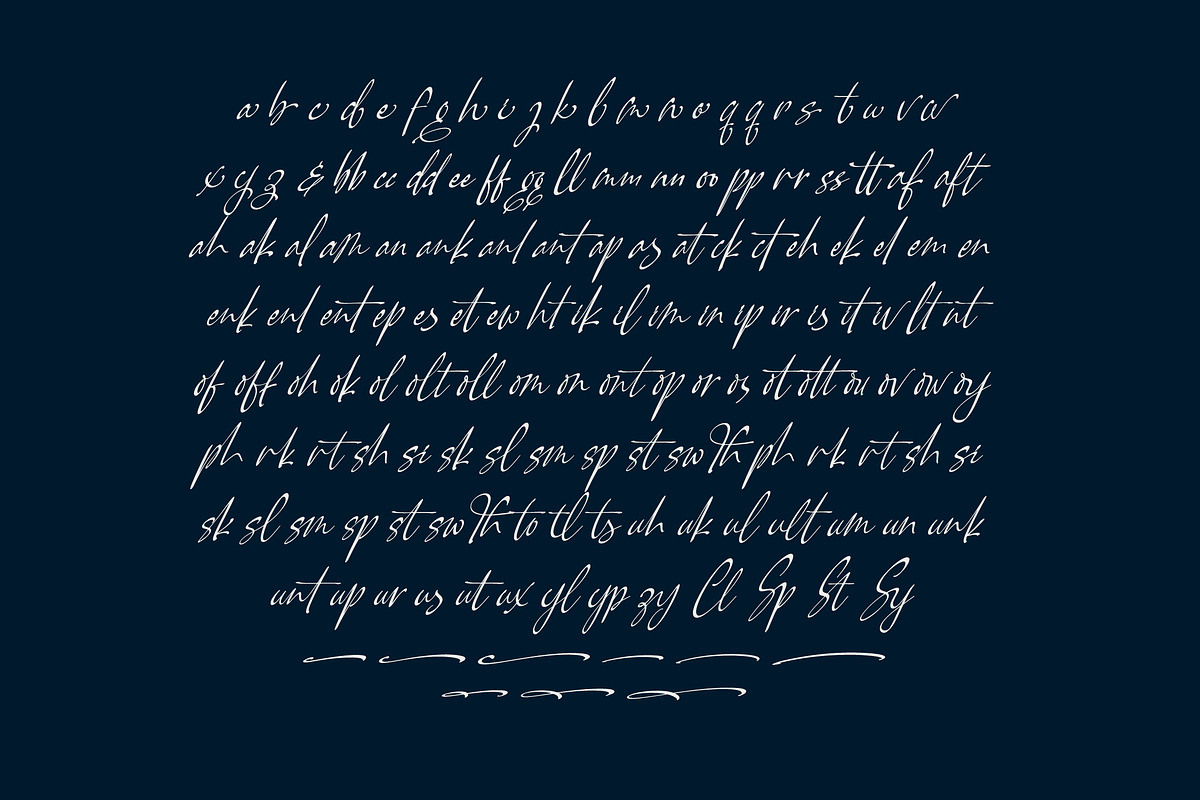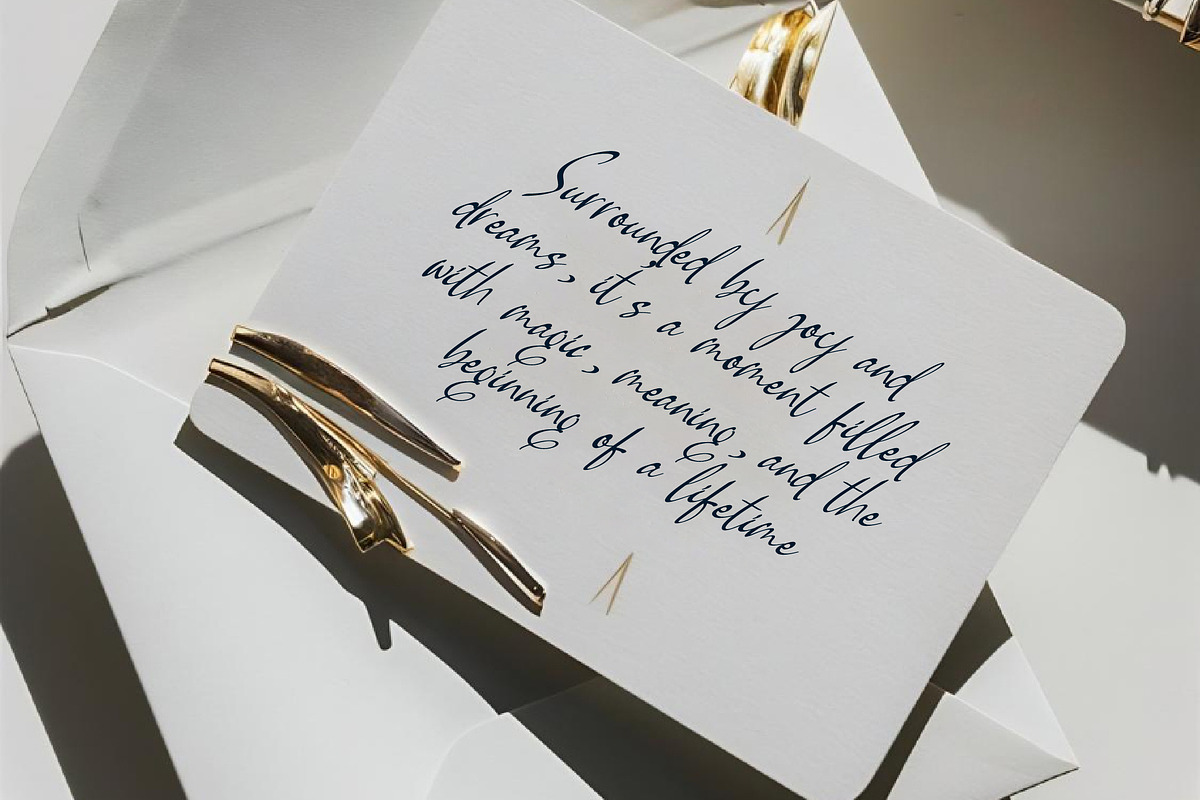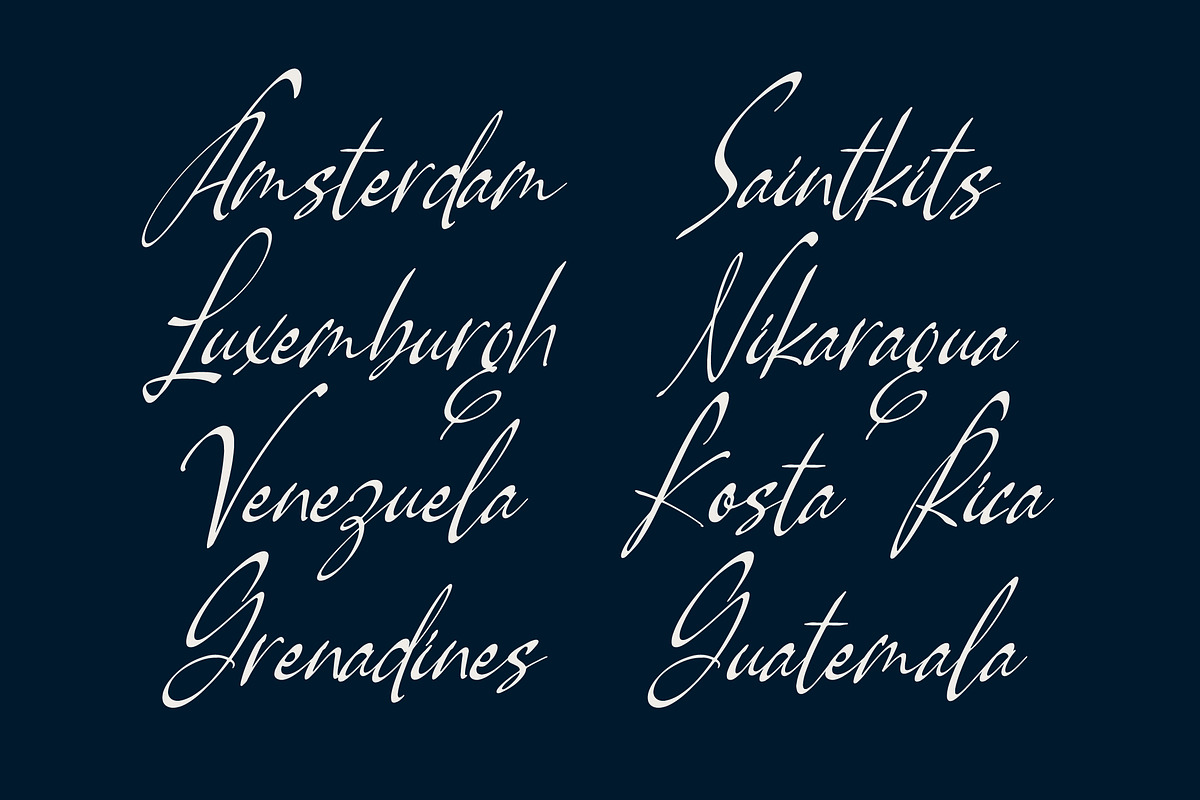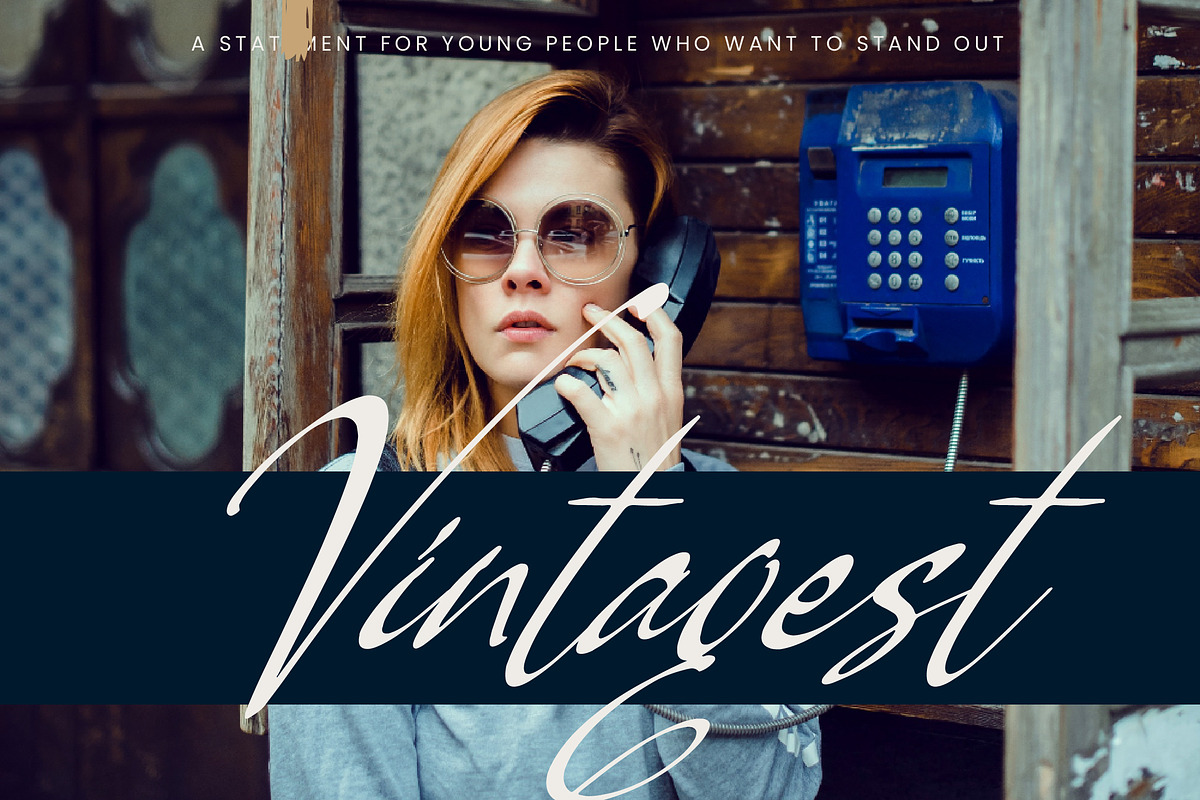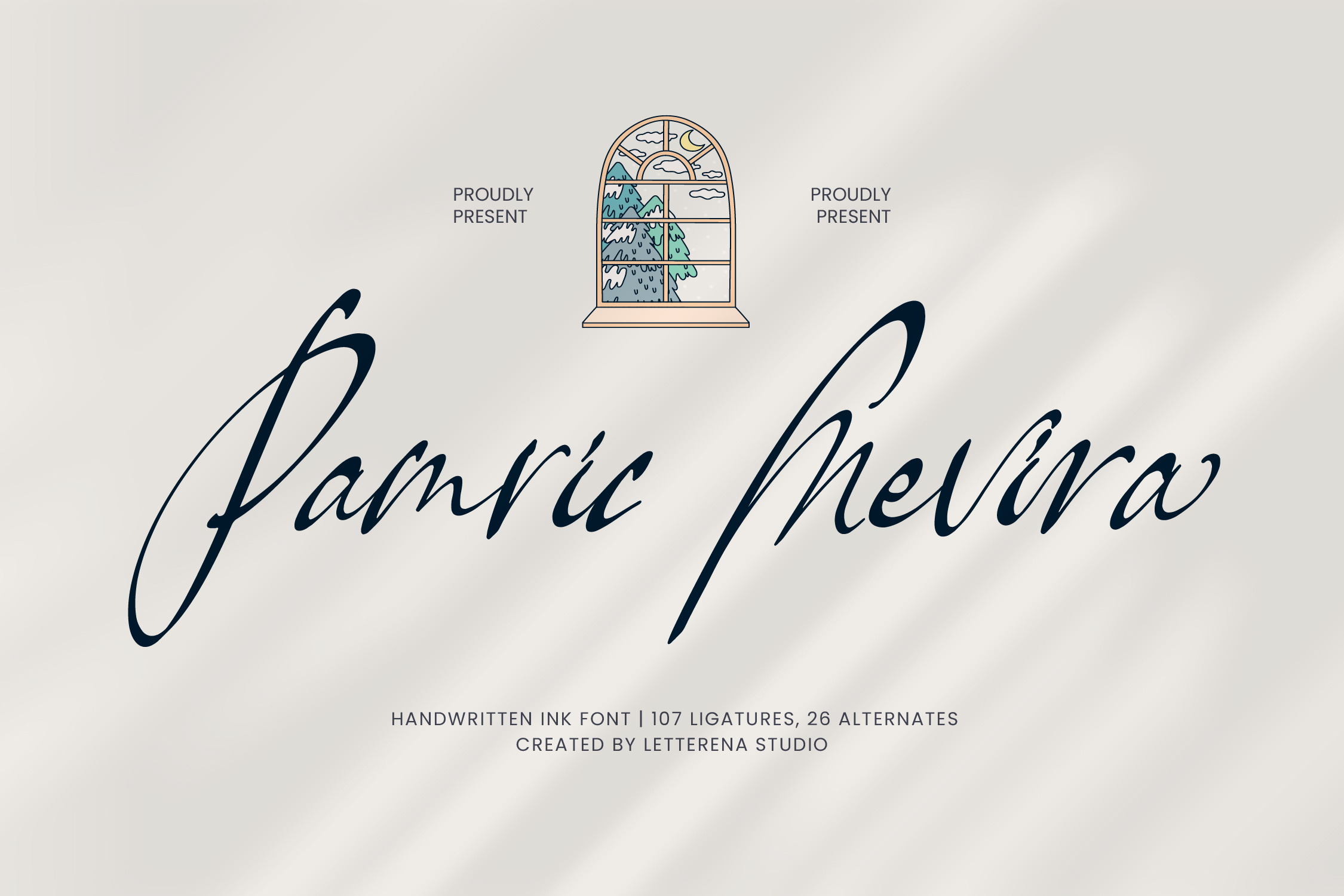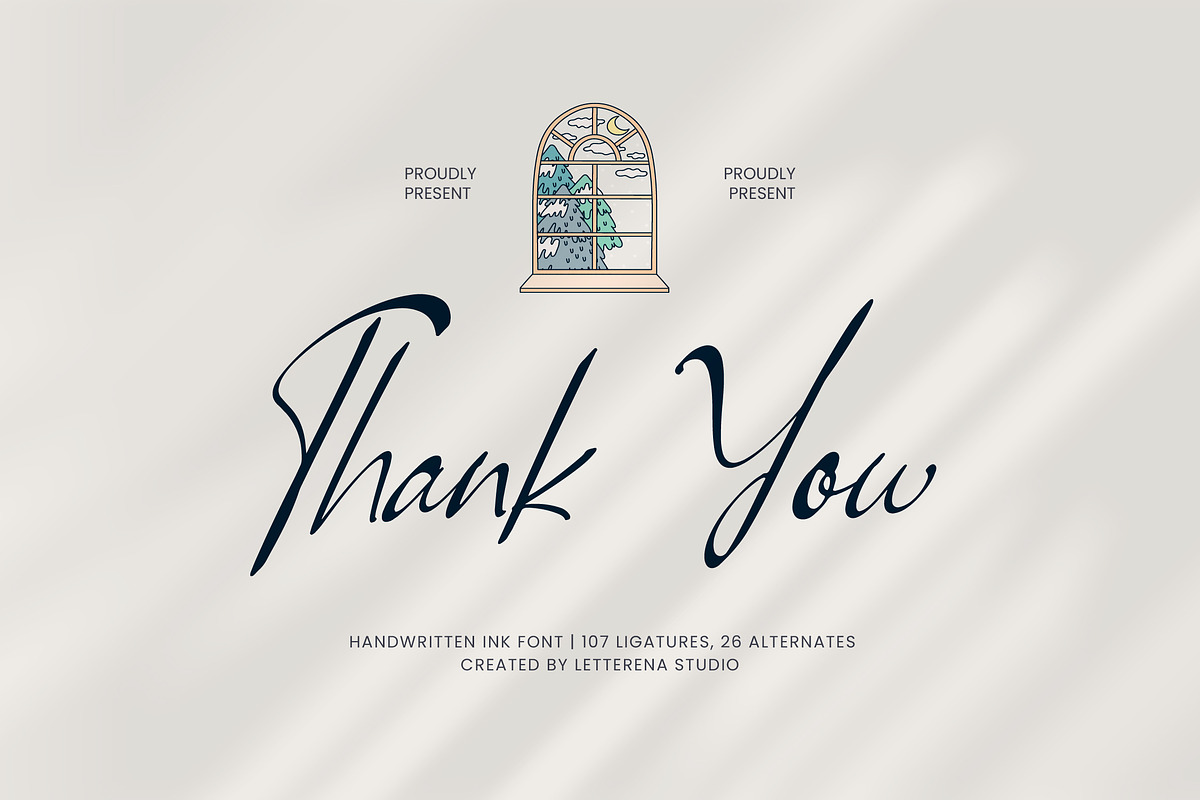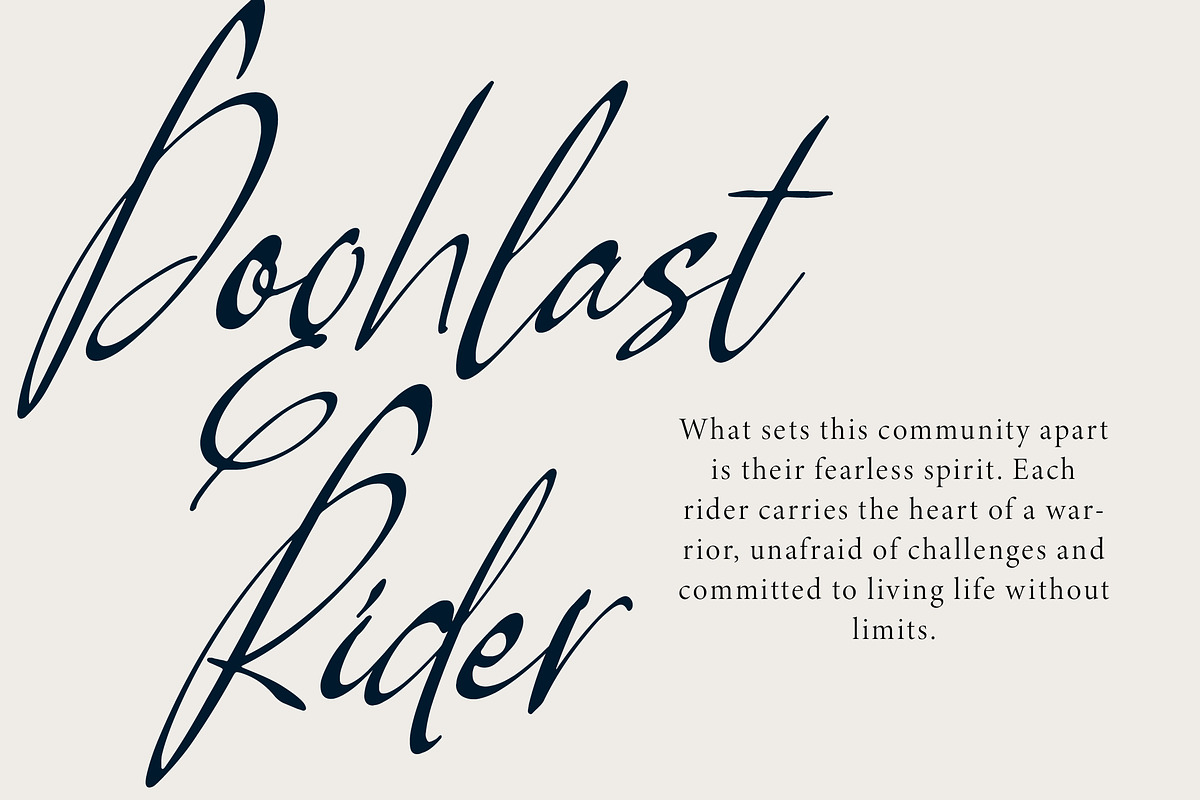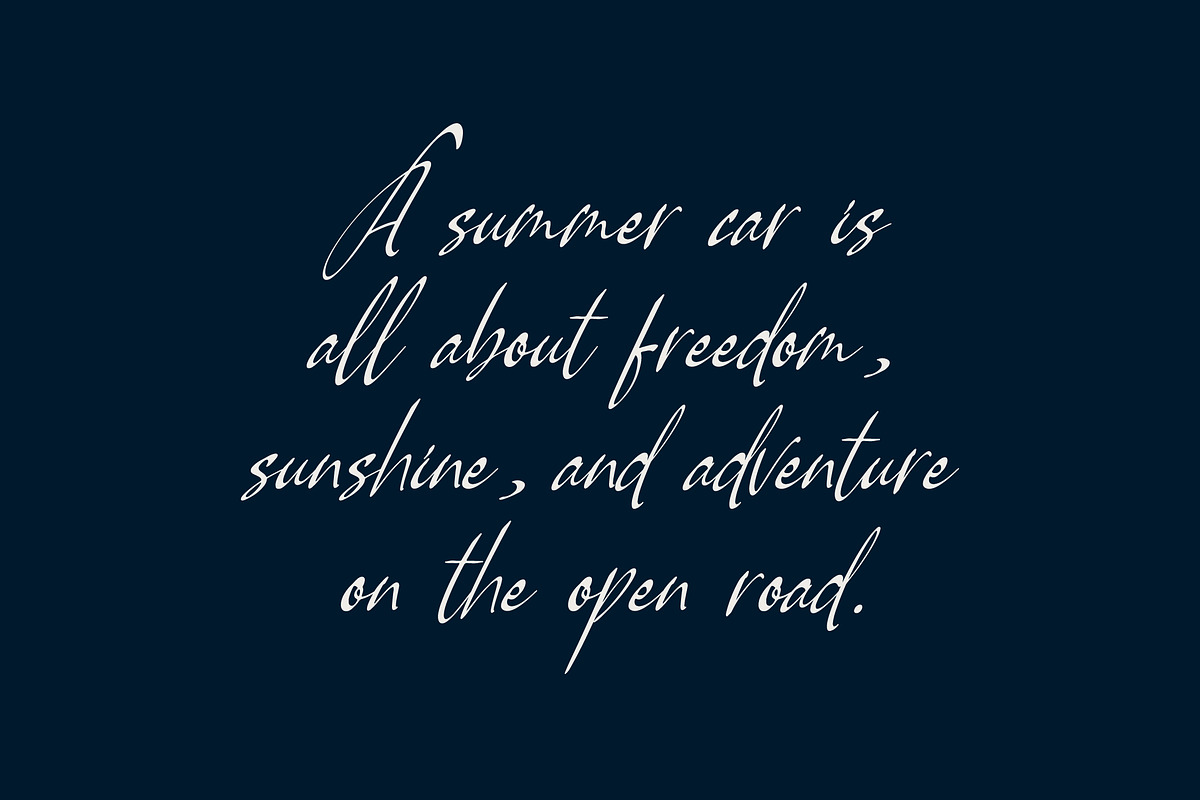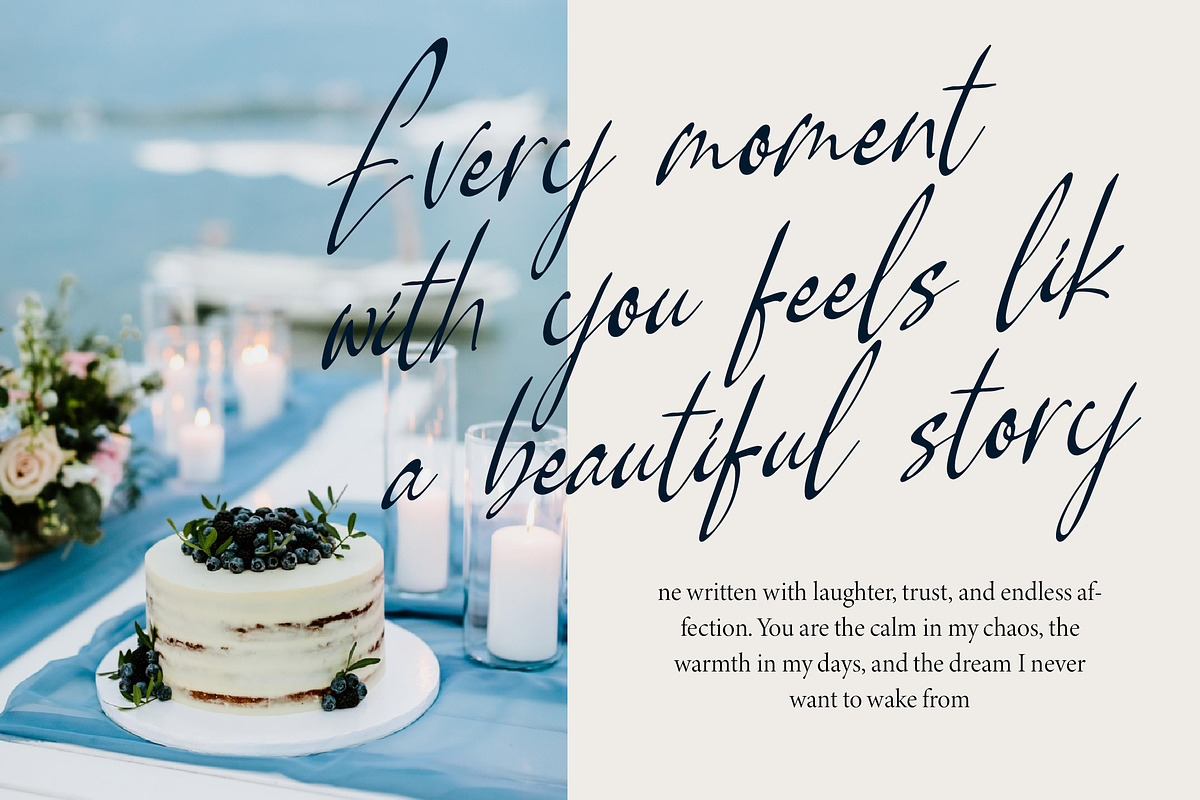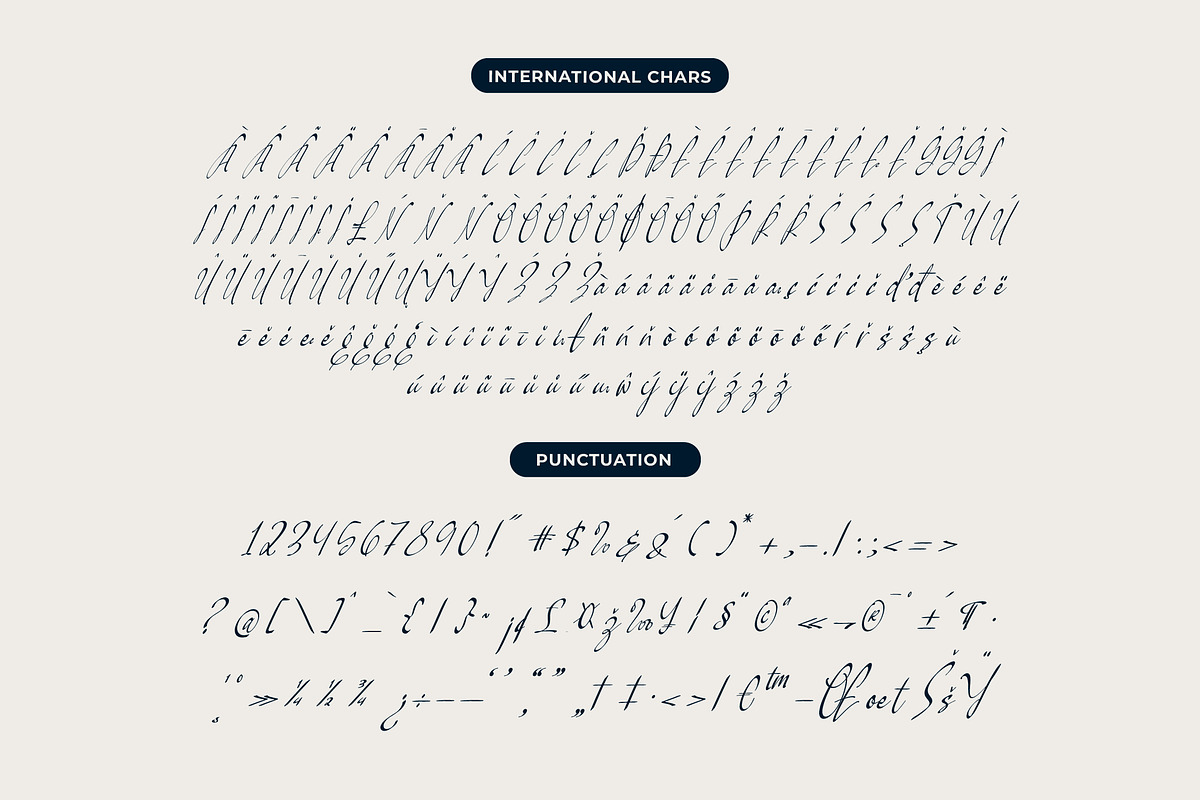
Pamric Mevira Handwritten Ink Font
Pamric Mevira - Handwritten Ink Font , Pamric Mevira is a handwritten ink font with an elegant flow and natural pen texture. Featuring 107 ligatures and 26 alternates, it captures the beauty of authentic handwriting with refined sophistication. Perfect for wedding invitations, branding, greeting cards, and signature designs, Pamric Mevira adds a luxurious and personal touch to every project. Its smooth curves and organic strokes make it ideal for elegant, timeless compositions.
- 107 Ligature 26 Alternate & Swashes